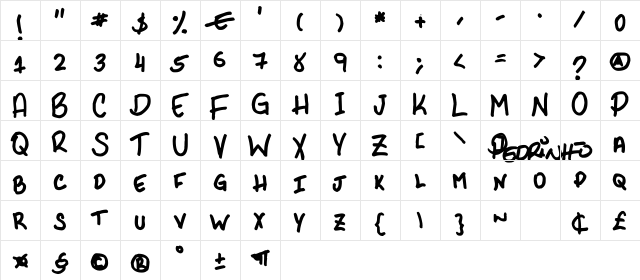
PHR Scrypt II Regular
Design Context for PHR Scrypt II Typeface
PHR Scrypt II is a composed and adaptable typeface that performs quietly and consistently across a wide range of design contexts.